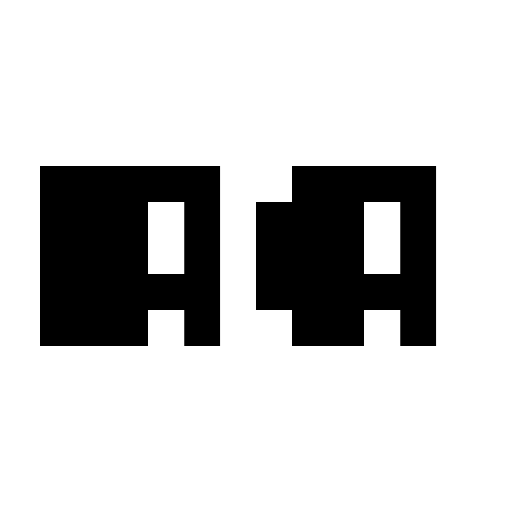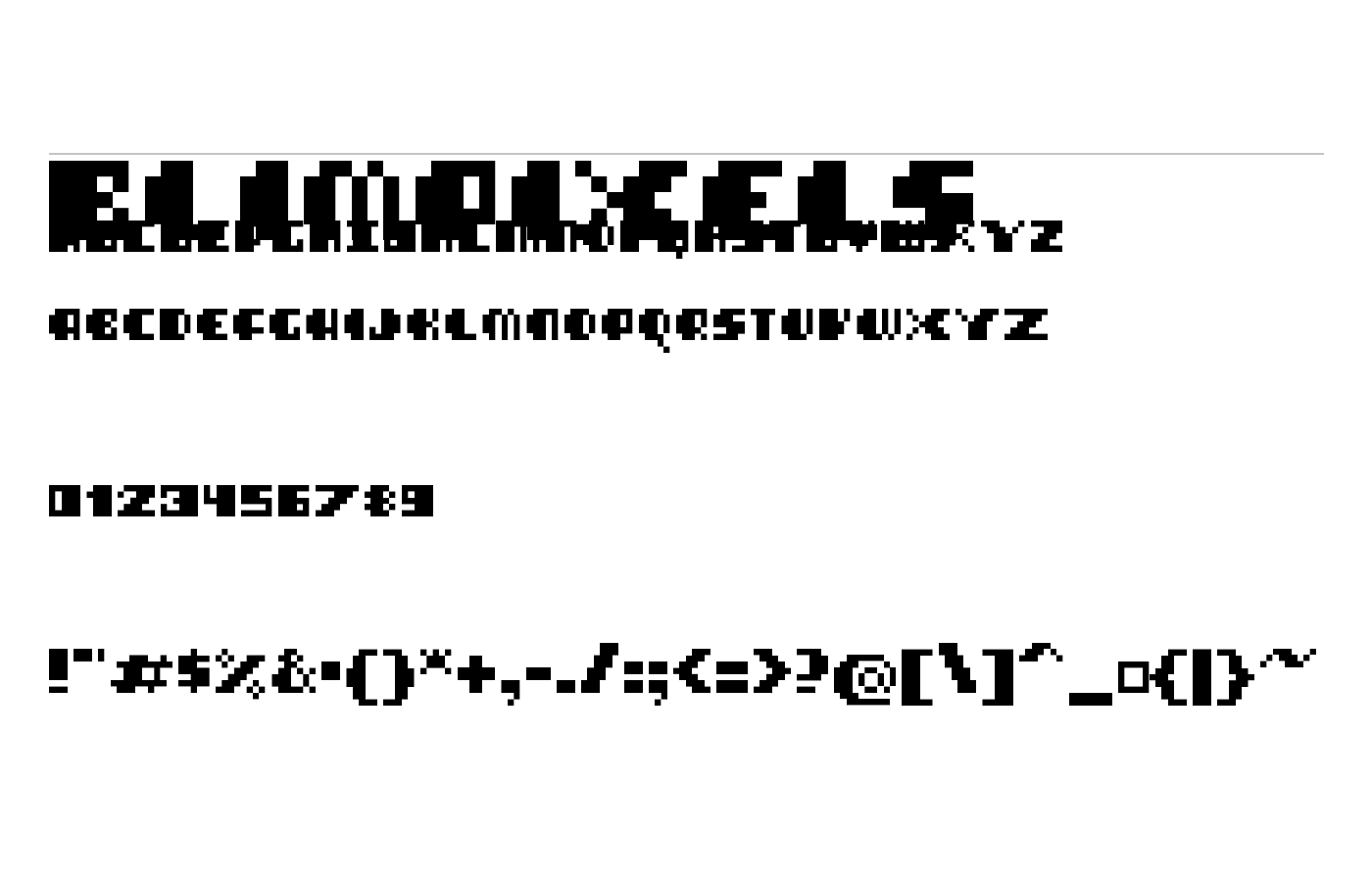
Blimpixels is a pixelated, monospaced sans serif font featuring blocky, geometric letterforms with a retro digital vibe. Its bold weight, consistent stroke thickness, and squared shapes make it perfect for vintage gaming graphics, tech-inspired designs, and digital displays. This font works best in logos, headlines, and creative projects where a nostalgic, pixel-art aesthetic is desired.
Blimpixels Font